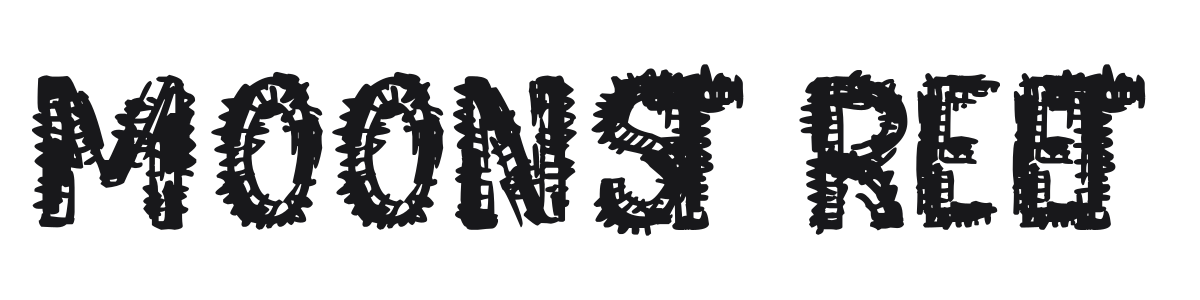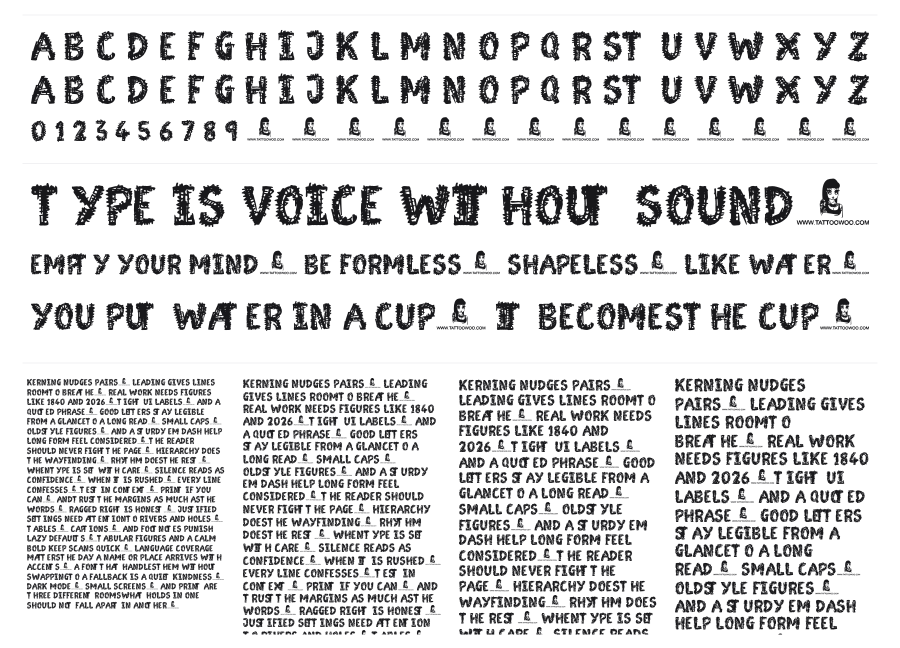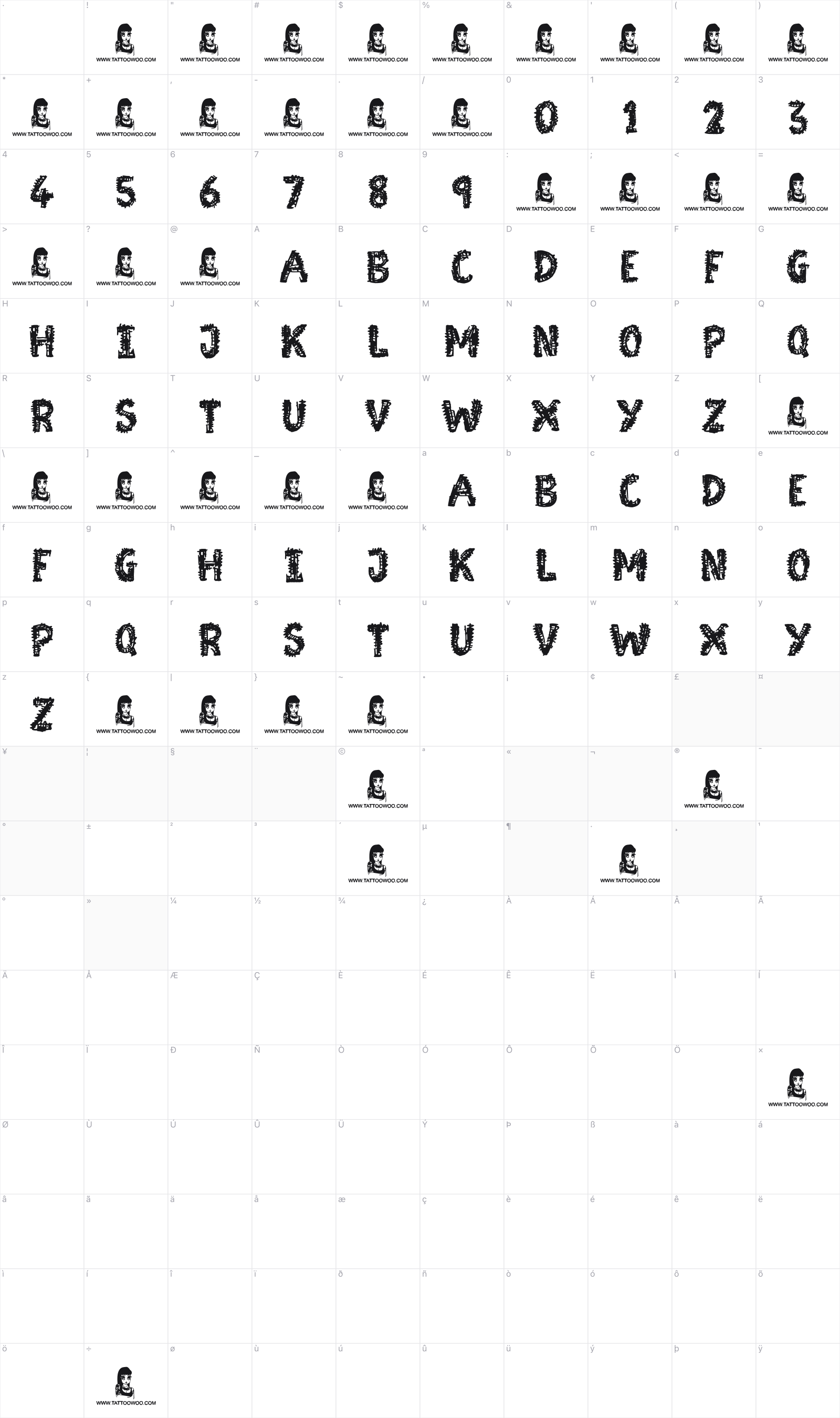
Moonstreet
by JSH creates · Website
Moonstreet is a heavily distressed serif display font draped in jagged, scratchy erosion that evokes hand-carved wood type or aged tattoo flash art. Every character is thick and bold, with surfaces so roughened and frayed they feel almost physical. It belongs on concert posters, horror titles, and anything that needs to look like it survived something.